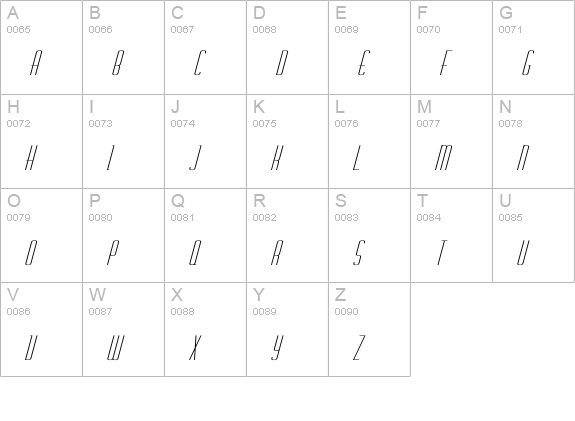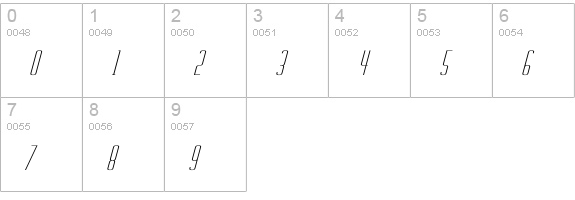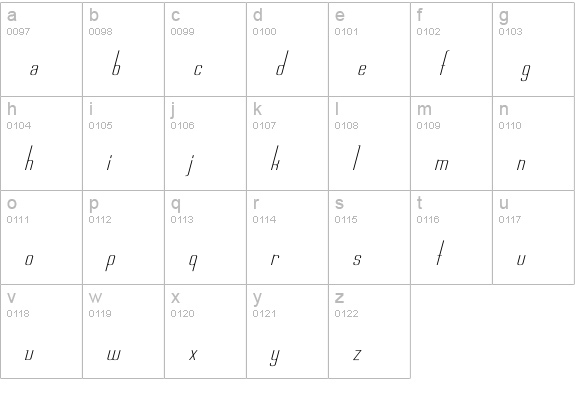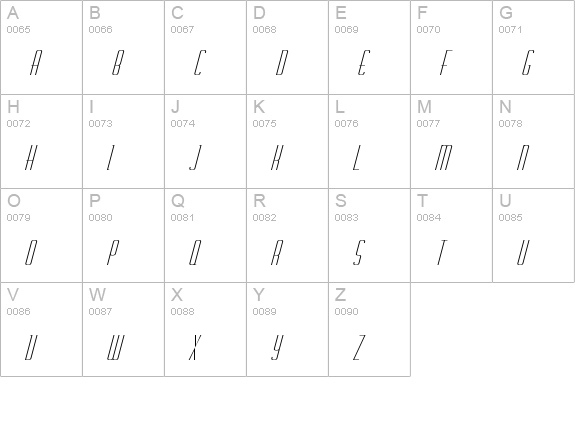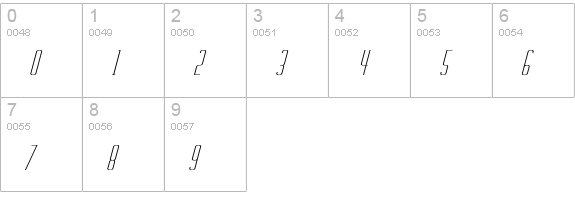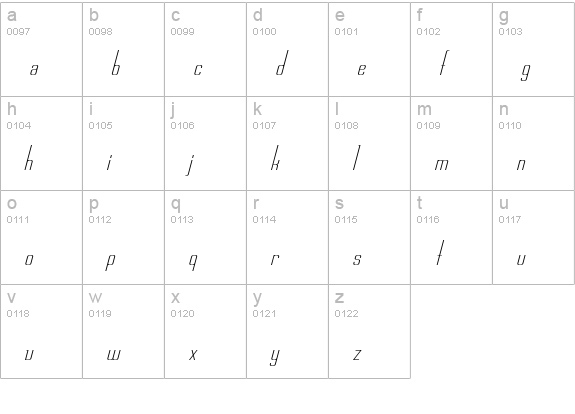
Rschasline Italic is a distinctive, italic variant in the Rschasline typeface family \xE2\x80\x94 well suited to design and typography projects.
Introducing Rschasline Italic font - a modern and elegant typeface that adds a touch of sophistication to any design project. Its sleek and slanted letterforms exude a sense of style and grace, making it perfect for fashion, luxury branding, and editorial layouts. This unique font is freely available to download at FontsMarket.com, allowing designers to access its beauty and versatility with ease. Whether used for headlines, titles, or body text, Rschasline Italic font offers a wide range of creative possibilities to elevate your designs. With its flowing curves and distinctive italic style, Rschasline Italic font is sure to make a statement and leave a lasting impression on your audience. Don't miss out on this opportunity to enhance your projects with this stunning typeface. Download Rschasline Italic font today and unleash your creativity!